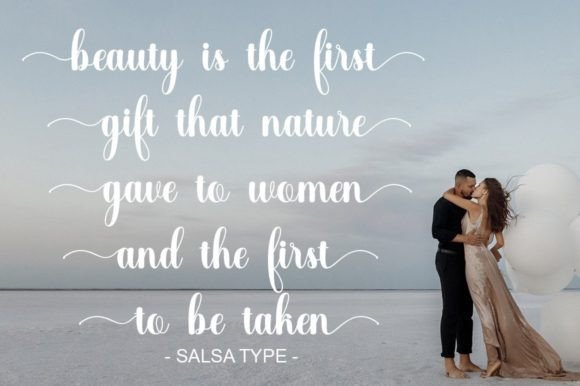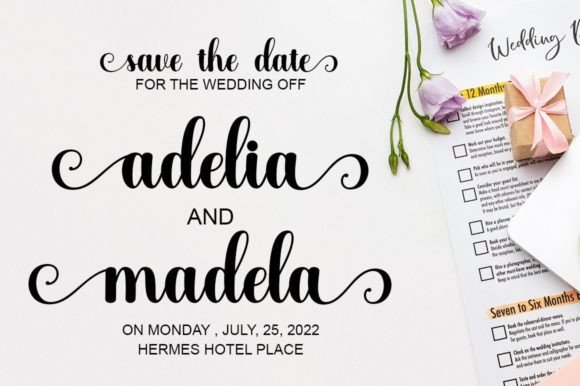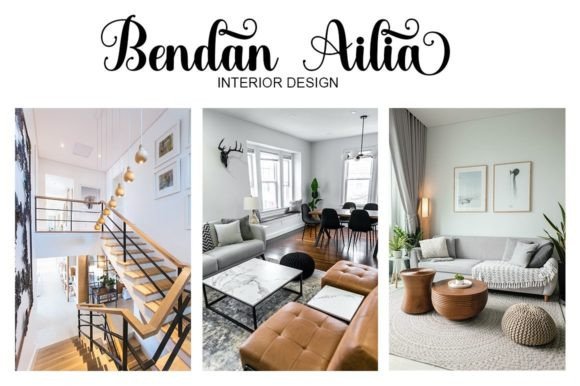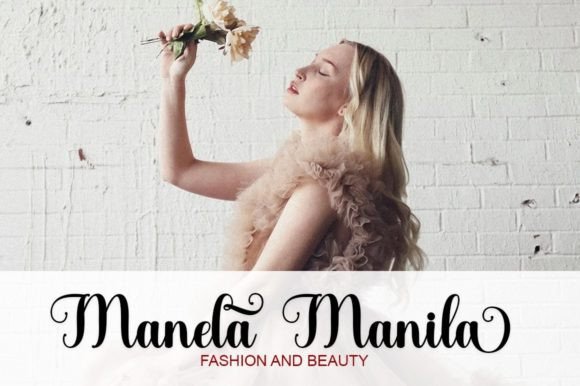
Introduction to Kalitha Font
Have you ever stumbled upon a design that left you breathless, wondering what made it so captivating? Perhaps it was the elegant script that danced across the page, or the way the words seemed to flow effortlessly. For designers, finding the perfect font can be the key to unlocking that creative magic. Enter the Kalitha Font, a timeless classic calligraphy-inspired script font that is poised to elevate your projects to new heights.
Whether you’re working on a high-quality design resource or a personal creative project, the Kalitha Font is the perfect companion. Its contemporary atmosphere and impeccable form make it a versatile choice for a wide range of applications, from logos and branding to invitations and social media graphics.
Key Features of Kalitha Font
- High-quality design resource for creative projects, ideal for logos, branding, and graphic design.
- Unique, elegant script font with a transparent background, perfect for adding a touch of sophistication to your design.
- Perfect for use in digital and print media, including websites, social media, business cards, and brochures.
- Ideal for designers looking for a free, high-quality font to enhance their creative project, without compromising on style or professionalism.
Honest Review: Kalitha Font
As a designer, I’m always on the lookout for high-quality design resources that can elevate my creative projects. The Kalitha Font is one such resource that caught my attention, and I’m excited to share my thoughts on it.
- ✨ Unique and elegant design aesthetic that adds a touch of sophistication to any project
- ✨ High-quality typography that’s perfect for headings and titles
- ✨ Transparent background, making it easy to customize and layer with other design elements
- ⚠️ Limited character set, which may not be ideal for longer texts or paragraphs
- ⚠️ Not as versatile as some other fonts, may not work well for body text or smaller text sizes
Overall, the Kalitha Font is a solid choice for designers who want to add a touch of elegance to their projects. While it may have some limitations, its unique design aesthetic and high-quality typography make it a great addition to any design resource collection.
The Kalitha Font is ideal for various creative projects, including social media graphics, presentations, logos, posters, and infographics. It’s also a great design resource for free download, offering a high-quality and unique font style with a transparent background.
For optimal results, use the Kalitha Font in combination with other design elements, such as images and graphics. Experiment with different font sizes, colors, and arrangements to create visually appealing designs.
Compared to Kalitha Font, Great Vibes Font has a more elegant and refined look, making it suitable for formal and professional designs. However, it lacks the playful and whimsical feel of Kalitha Font.